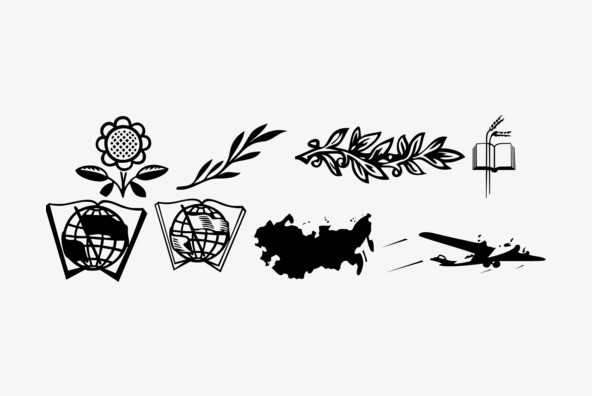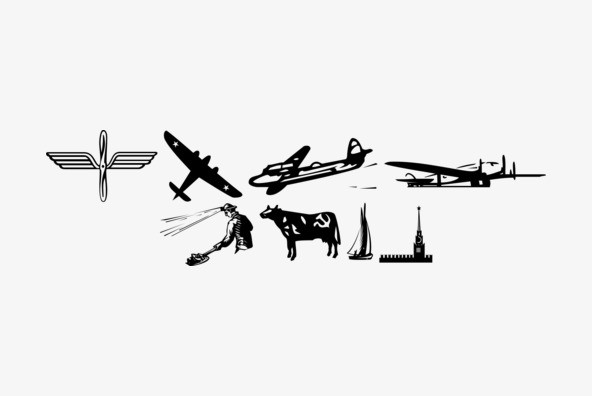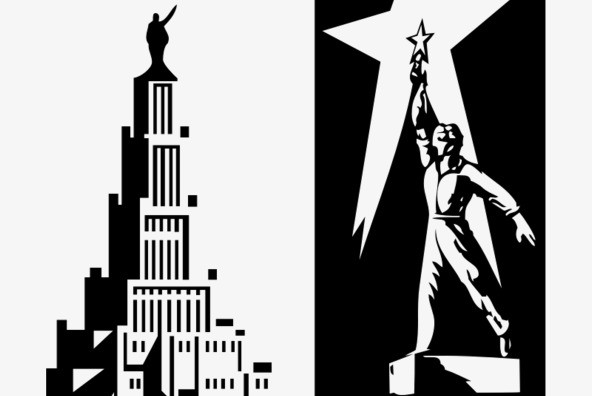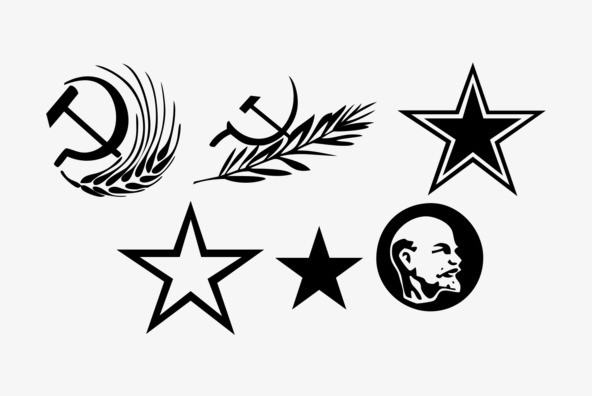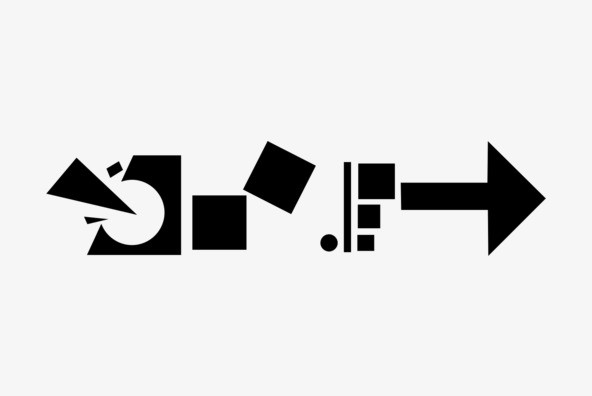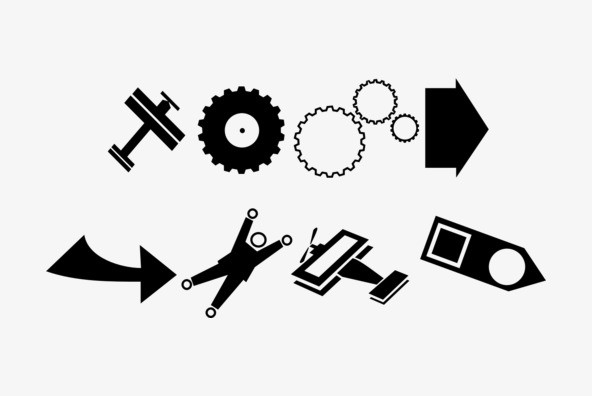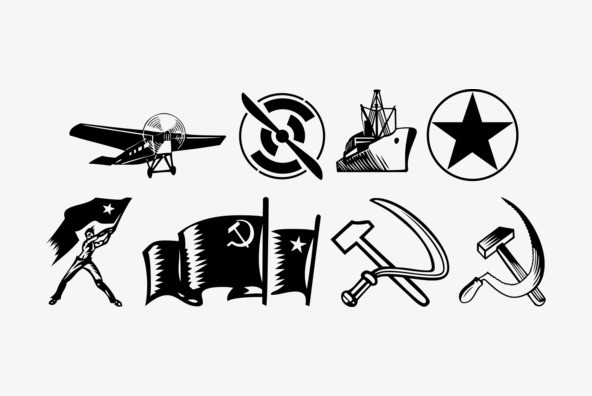
P22 Constructivist Extras
Font mavens of the world unite! These six typefaces recreate the bold graphic design of early Soviet Era Russian Artists such as Rodchenko and Popova. Seize control of the means of desktop production with this revolutionary font collective!